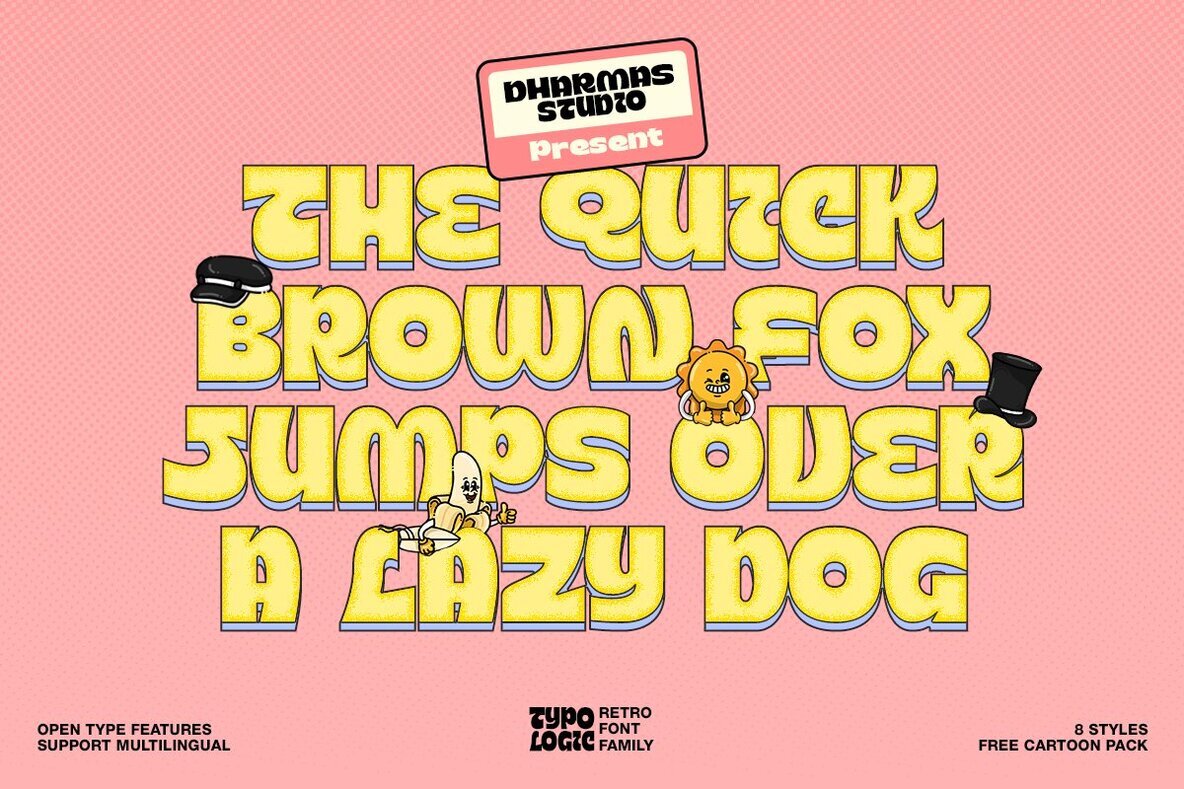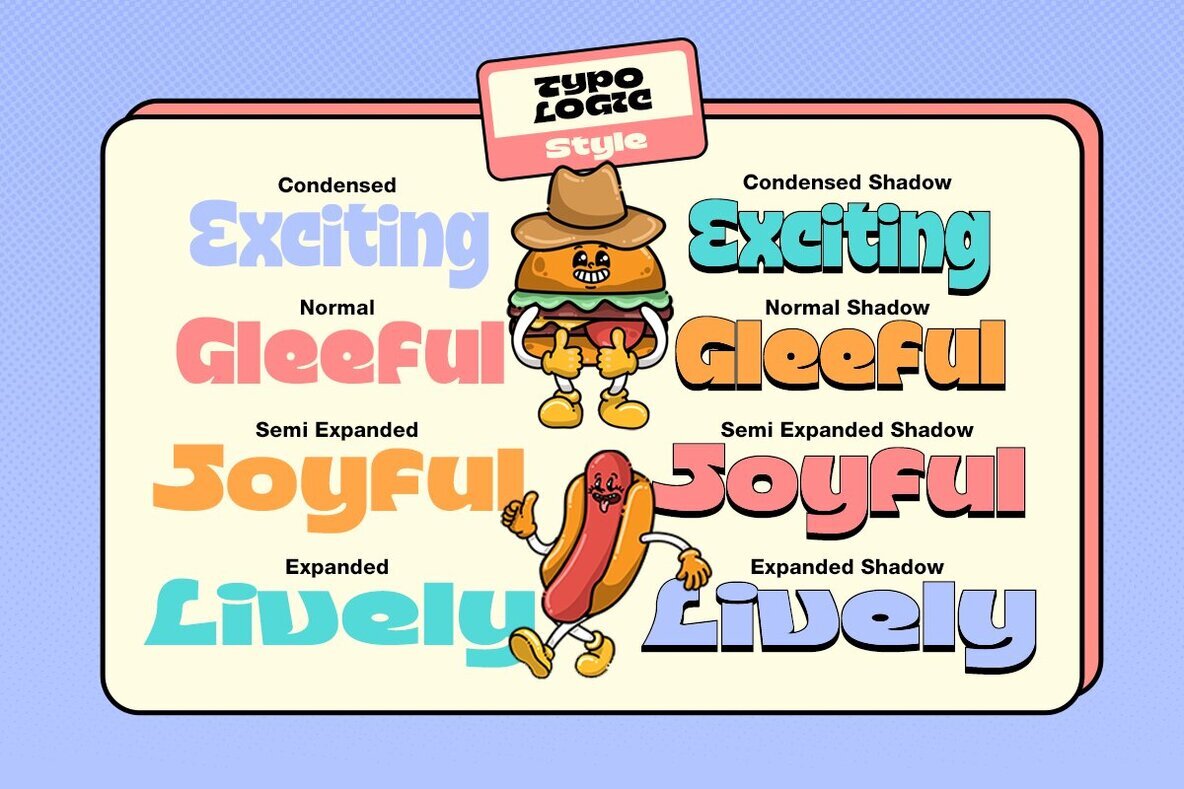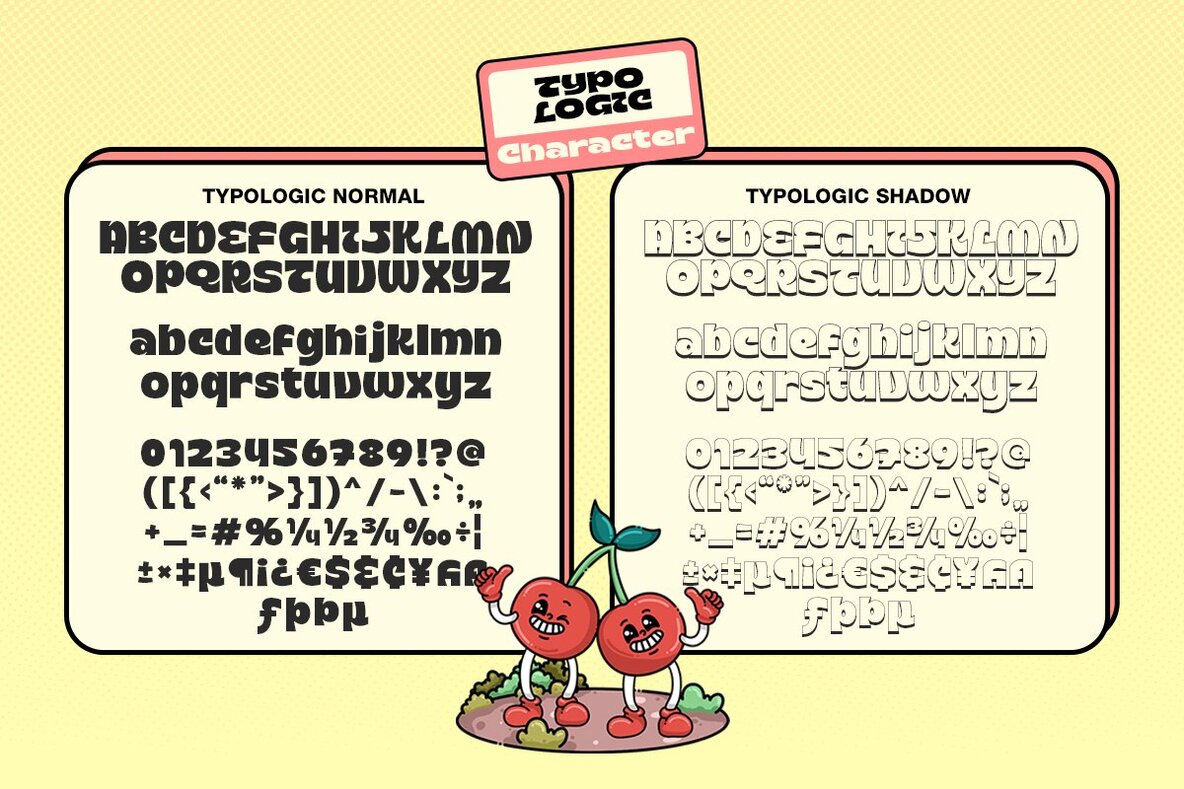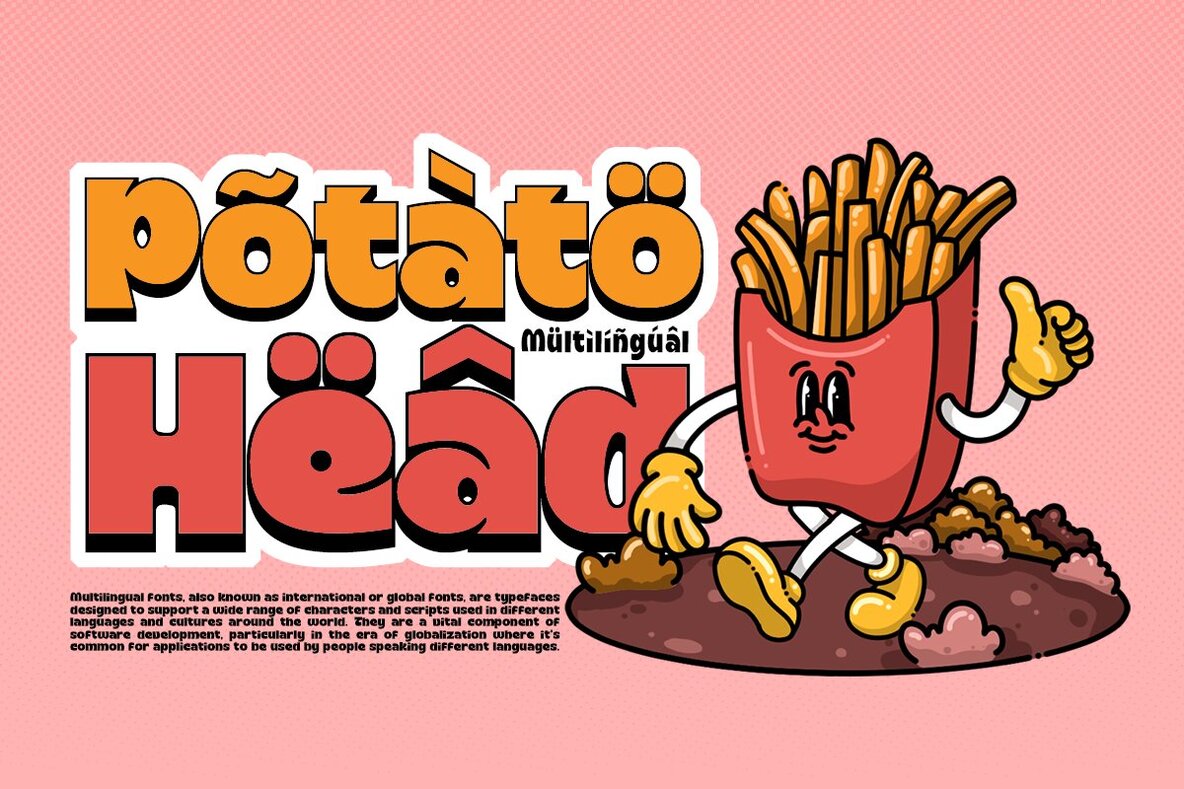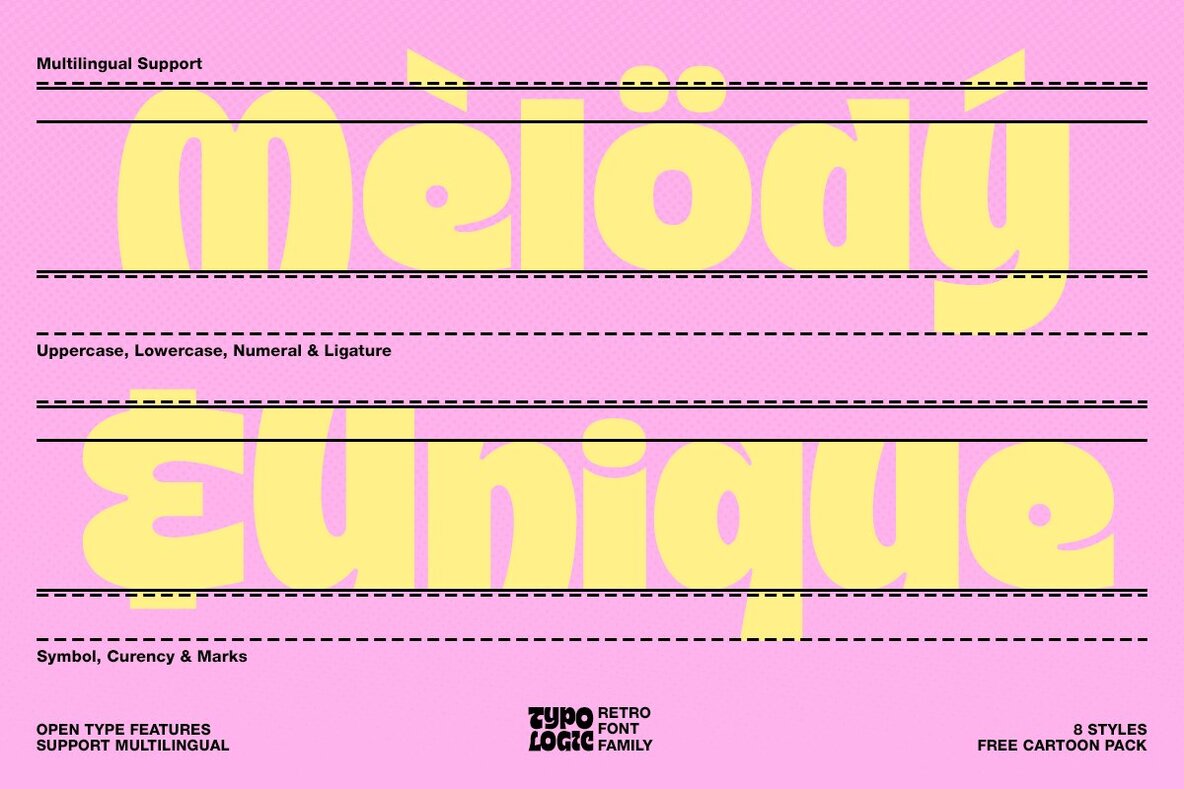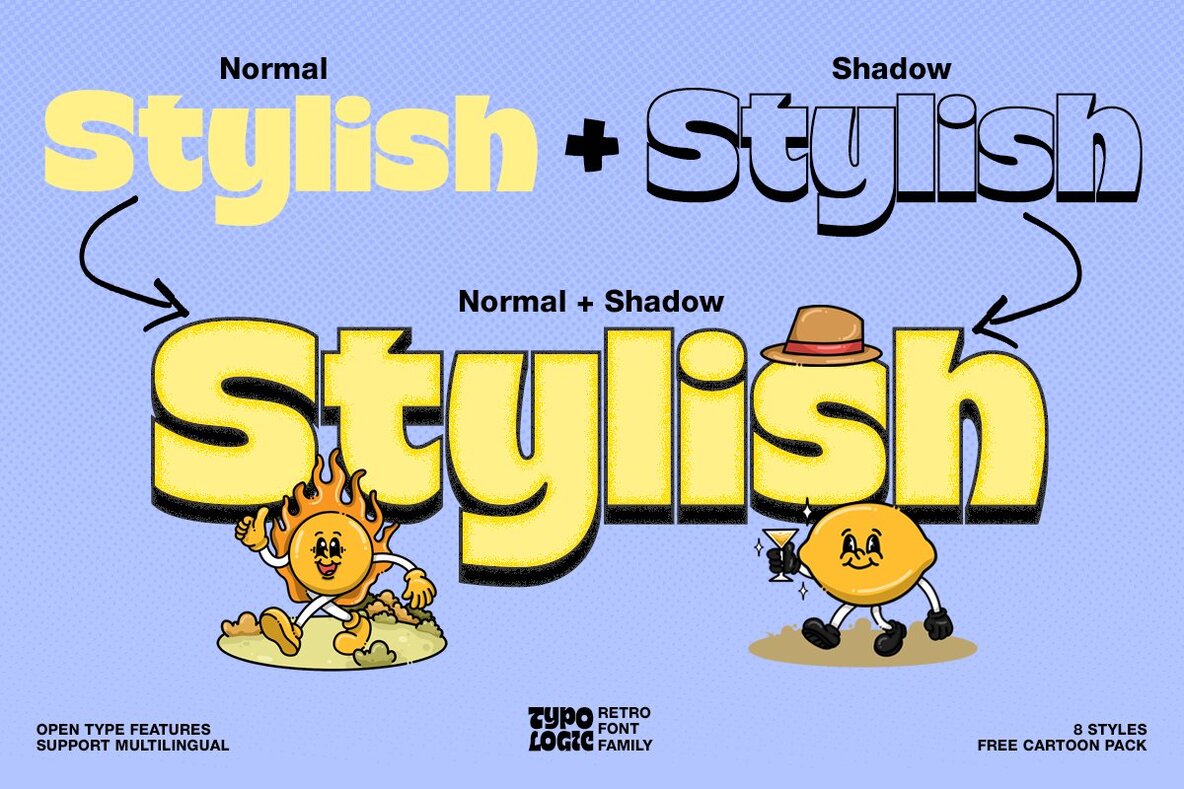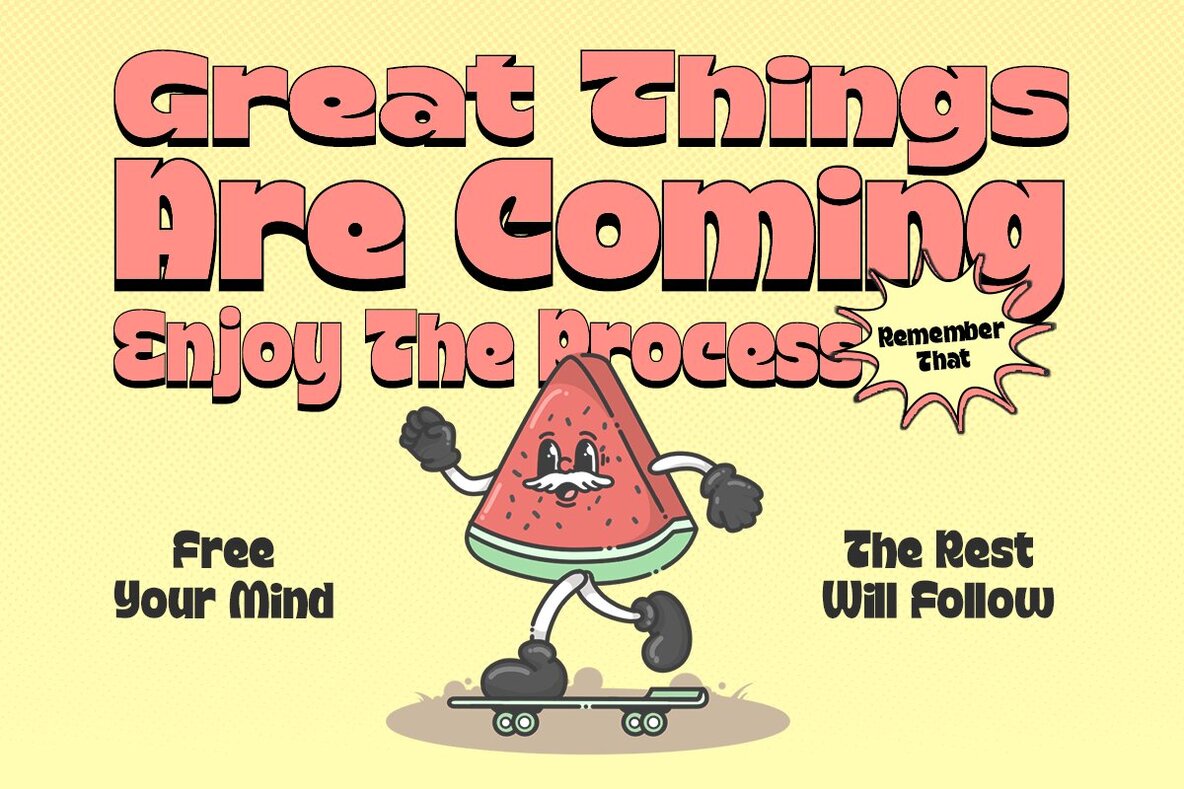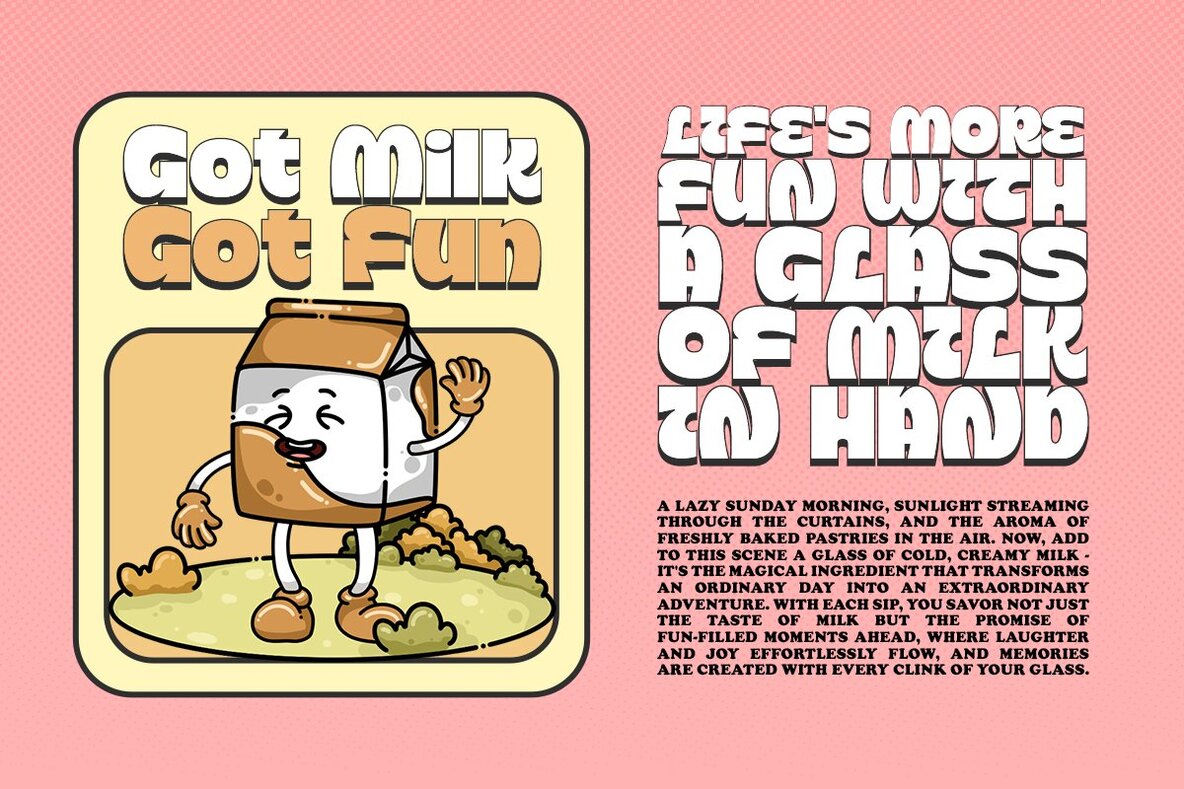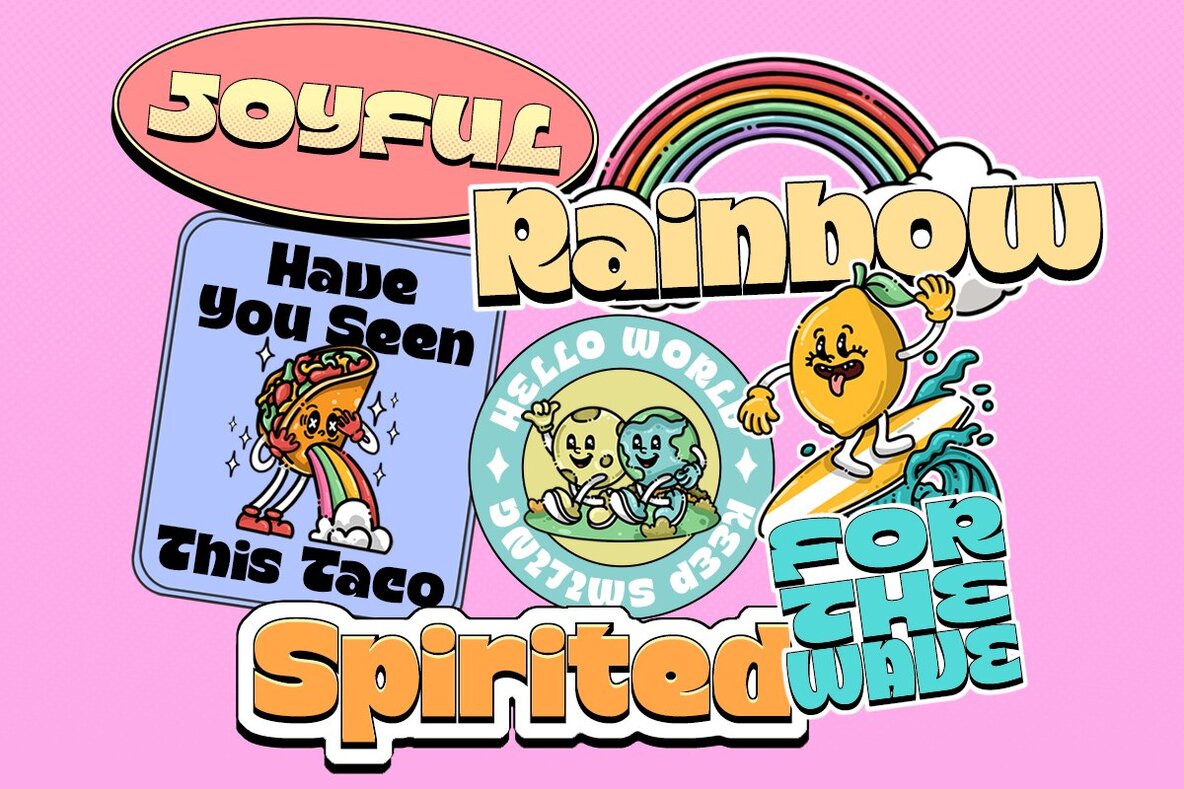
Typologic Font
Typologic Normal
Typologic Normal Shadow
Typologic SemiExpanded
Typologic SemiExpanded Shadow
Typologic Condensed
Typologic Condensed Shadow
Typologic Expanded
Typologic Expanded Shadow
Introducing Typologic, a font that effortlessly fuses geometric simplicity with the vibrant pop culture styles of the swinging 60s and 70s. This versatile typeface offers not just one, but 8 distinct font families, each with its own unique character. You'll find Condensed, Normal, Semi Expanded, and stylish shadow versions. But that's not all—when you choose Typologic, you also get a treasure trove of 56 FREE BONUS ASSETS, featuring retro mascot illustrations that perfectly complement your creative projects. Whether you're crafting a memorable logotype, eye-catching headlines, inviting signage, stylish apparel, chic invitations, captivating posters, heartwarming greeting cards, charming packaging, captivating book covers, inspiring printed quotes, striking album art, or cinematic movie titles, Typologic is your ultimate design companion. Features: Multilingual Supports: (Afrikaans, Albanian, Catalan, Croatian, Czech, Danish, Dutch, English, Estonian, Finnish, French, German, Hungarian, Icelandic, Italian, Lithuanian, Maltese, Norwegian, Polish, Portuguese, Slovenian, Spanish, Swedish, Turkish, Zulu)